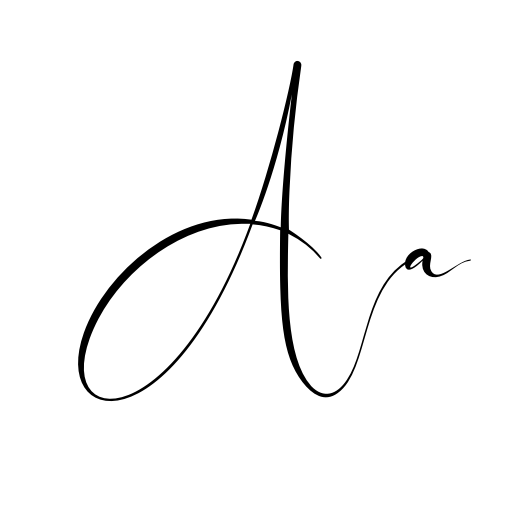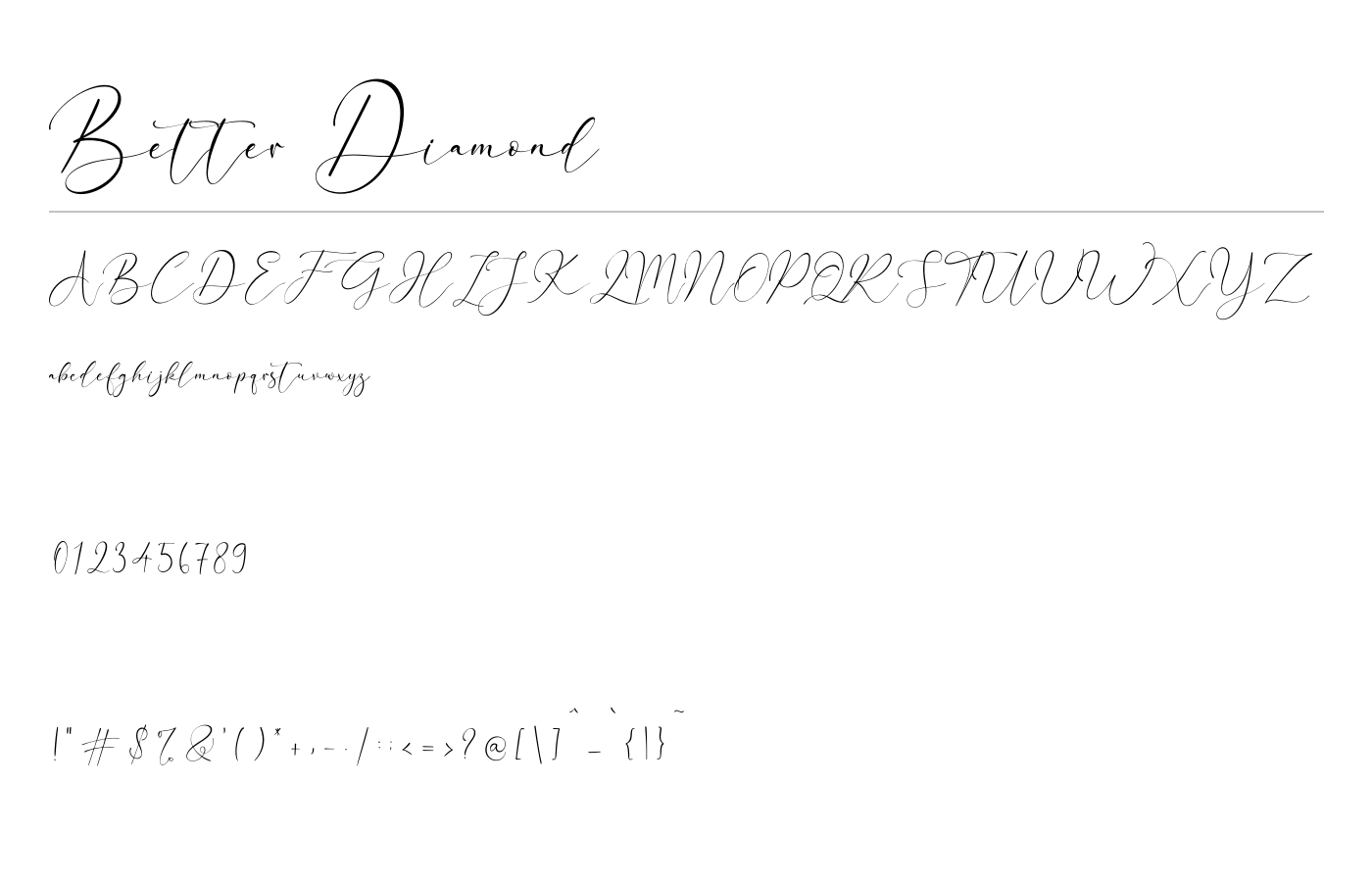
Better Diamond is an elegant, delicate script font characterized by its fine, flowing lines and graceful letterforms that evoke a sense of sophistication and charm. Its light weight and airy style make it perfect for luxury branding, wedding invitations, and upscale editorial projects where a refined, romantic touch is desired. This font shines best in headlines and decorative uses, adding a personal, artistic flair without overwhelming the design.
Better Diamond Font